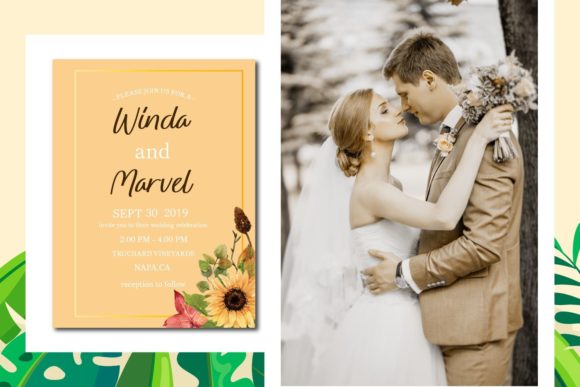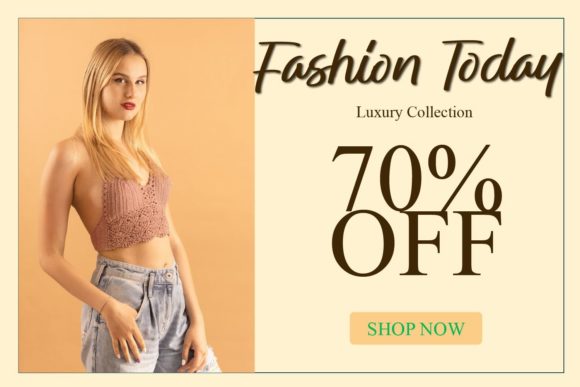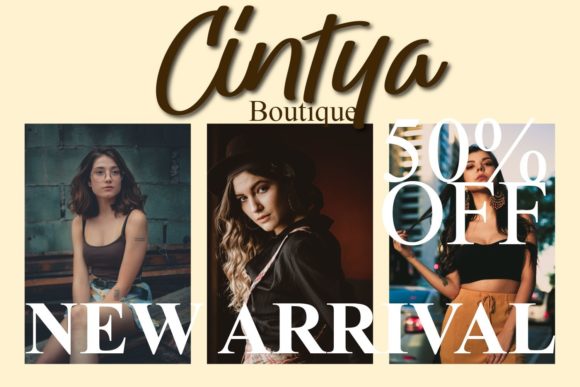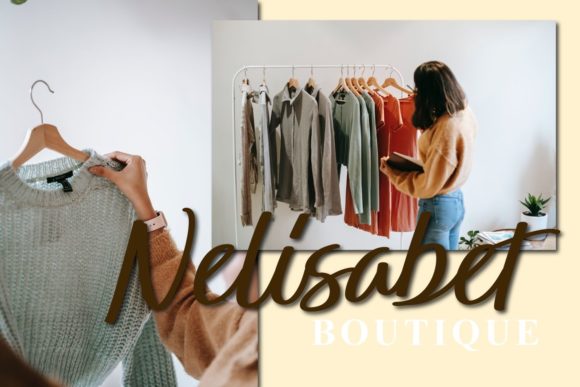
Introduction to Aurora Cute Font
Aurora Cute is a delicate and elegant handwritten font.
Its distinct and well balanced letters make this font a masterpiece Fall in love with its incredibly versatile style and use it to create spectacular designs.